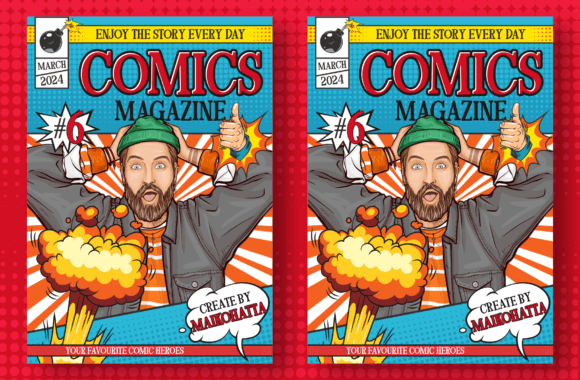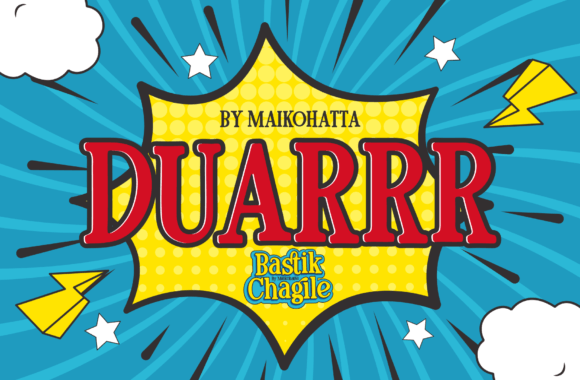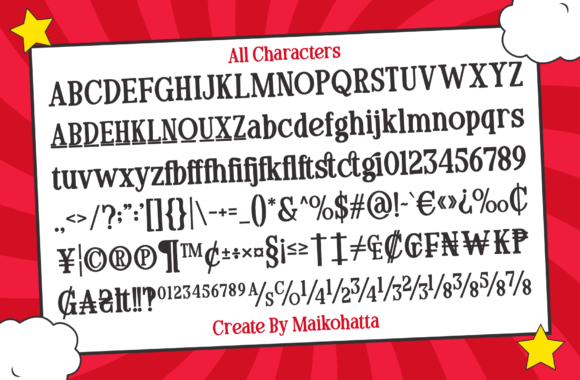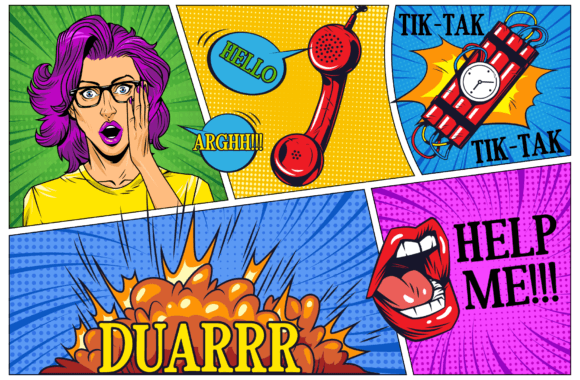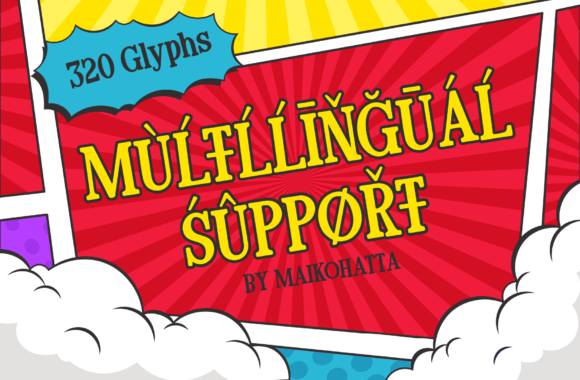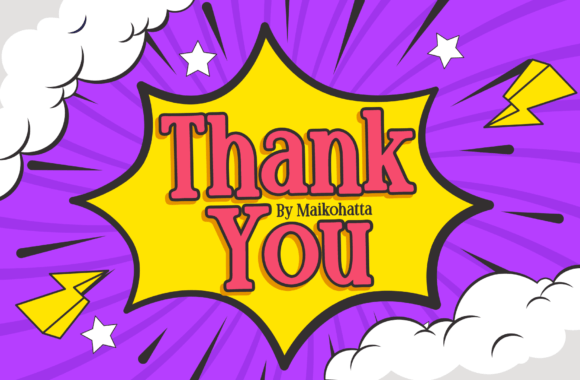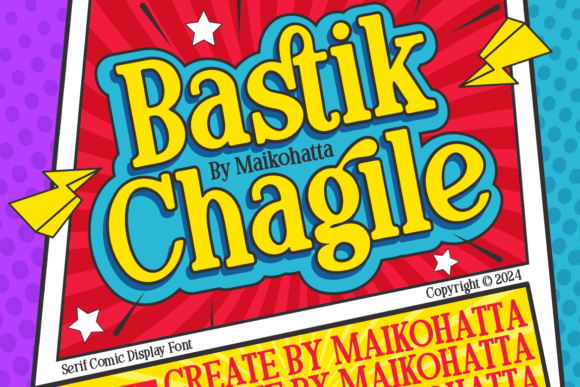
Introducing Bastik Chagile Font: Add a Touch of Playfulness to Your Designs
Are you tired of using the same old fonts in your designs? Do you want to add a touch of playfulness and fun to your projects? Look no further than Bastik Chagile, our new serif comic display font. This exciting new font is designed to bring joy, cheerfulness, and a light atmosphere to your designs, making it perfect for a wide range of projects.
What is Bastik Chagile Font?
Bastik Chagile is a handwritten-style serif font that is reminiscent of the playful and fun style often found in comics and cartoons. With its unique and quirky design, this font is sure to grab attention and add a touch of whimsy to any project. Whether you’re working on a poster design, invitation card, comic, or promotional material, Bastik Chagile is the perfect choice for designers who want to create a fun and youthful feel.
Key Features of Bastik Chagile Font
- Handwritten-style serif font: Bastik Chagile has a unique, handwritten-style design that gives it a personal and playful feel.
- Comic and cartoon-inspired: This font is inspired by the playful and fun style often found in comics and cartoons, making it perfect for projects that require a lighthearted feel.
- Serif design: The serif design of Bastik Chagile adds a touch of sophistication and elegance to your designs, while still maintaining a playful feel.
- Perfect for young audiences: This font is designed to appeal to young audiences, making it perfect for projects such as children’s books, kids’ party invitations, and promotional materials aimed at a younger demographic.
Use Cases for Bastik Chagile Font
Bastik Chagile is a versatile font that can be used in a wide range of projects, including:
- Poster designs: Add a touch of playfulness to your poster designs with Bastik Chagile. This font is perfect for promoting events, products, or services in a fun and eye-catching way.
- Invitation cards: Create fun and playful invitation cards for parties, events, or celebrations with Bastik Chagile.
- Comics and cartoons: This font is perfect for creating comics, cartoons, or animated stories that require a playful and youthful feel.
- Promotional materials: Use Bastik Chagile to create promotional materials such as flyers, brochures, or social media graphics that require a fun and engaging design.
Why Choose Bastik Chagile Font?
There are many reasons why you should choose Bastik Chagile for your next design project. Here are just a few:
- Unique and eye-catching design: Bastik Chagile has a unique and eye-catching design that is sure to grab attention and add a touch of playfulness to your designs.
- Easy to read: Despite its playful design, Bastik Chagile is easy to read and understand, making it perfect for body text and headlines.
- Versatile: This font can be used in a wide range of projects, from posters and invitation cards to comics and promotional materials.
- Fun and youthful feel: Bastik Chagile is designed to add a fun and youthful feel to your designs, making it perfect for projects that require a lighthearted and playful approach.
In conclusion, Bastik Chagile is an exciting new font that is sure to add a touch of playfulness and fun to your designs. With its unique and eye-catching design, easy readability, and versatility, this font is perfect for a wide range of projects. Whether you’re a designer, craft, or DIY enthusiast, Bastik Chagile is a great choice for anyone looking to create fun and engaging designs. So why not give it a try and see how Bastik Chagile can elevate your designs to the next level?